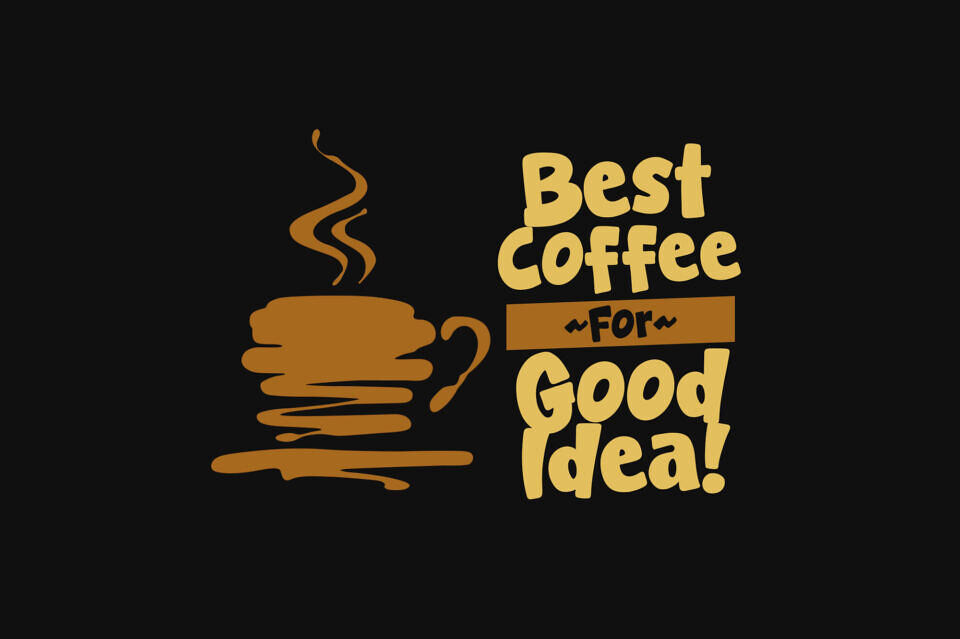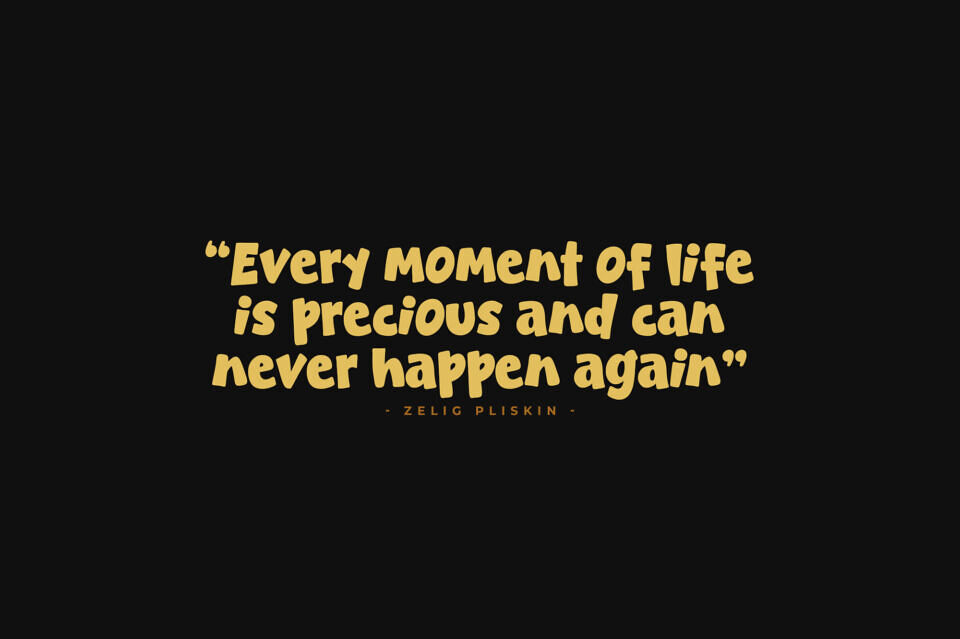
Grow Year Font
Grow Year is a chunky, delightful display font that radiates positivity and youthful energy. This Grow Year font features slightly irregular, hand-cut shapes that give it a “paper-craft” or “cut-out” feel, making it perfect for nursery decor, school posters, or quirky branding.
The Grow Year typeface is designed to be bold and legible, ensuring your message pops against busy backgrounds. Whether you are creating a logo for a sustainable brand or a cover for a children’s magazine, the Grow Year font brings a sense of joy and approachability.